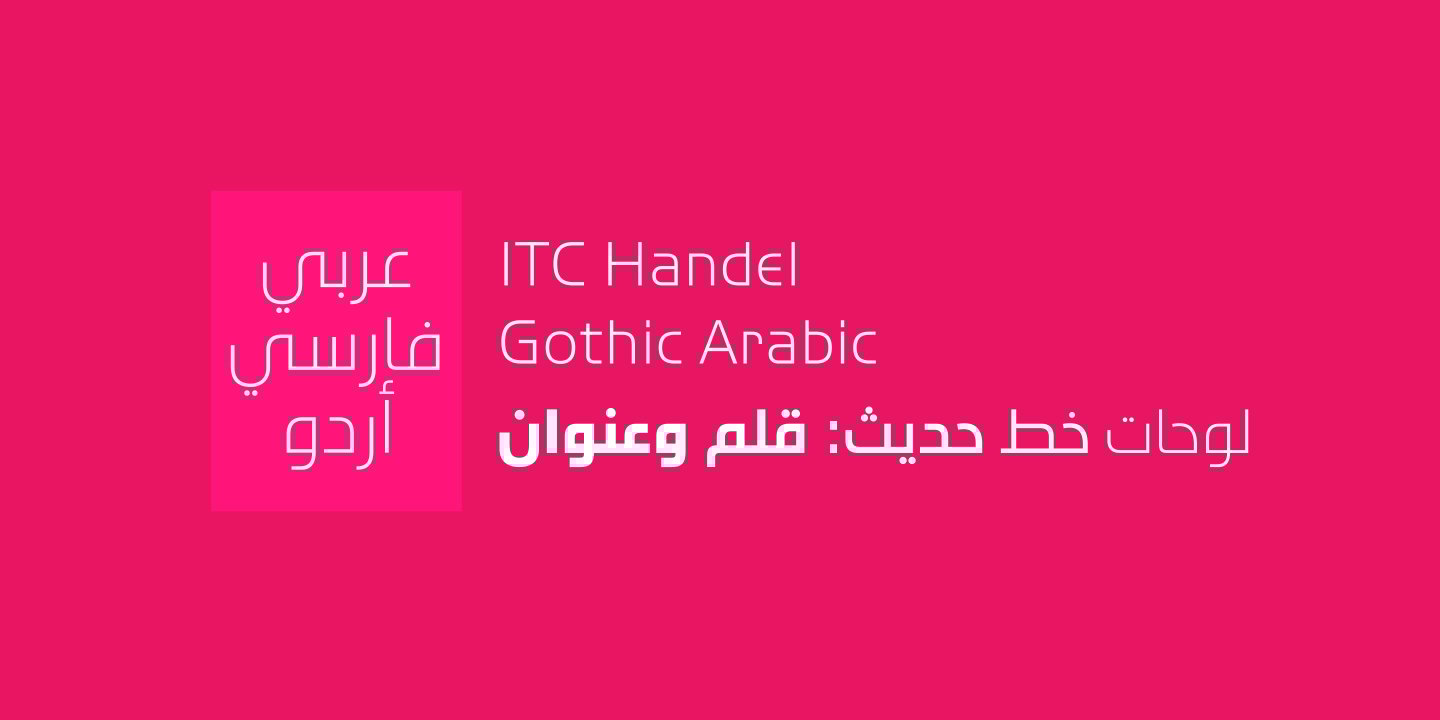
The ITC Handel Gothic Arabic Font is perfectly suited for diverse multilingual applications including Arabic-English bilingual branding, Middle Eastern corporate communications, international business presentations, multicultural advertising campaigns, global banking materials, diplomatic documentation, cultural exchange programs, international hotel signage, cross-cultural marketing materials, and multinational company branding. Its distinctive character makes it particularly effective for international corporations, financial institutions, government agencies, and global brands seeking to convey professionalism, cultural sensitivity, and international sophistication in their bilingual communications.
What makes the ITC Handel Gothic Arabic Font extraordinarily exciting is its seamless integration of Arabic script elegance with Latin typography excellence. This groundbreaking typeface represents the pinnacle of cross-cultural typographic design, combining the flowing beauty of Arabic calligraphy with the geometric precision of Gothic sans-serif principles. The font's captivating character emerges from its harmonious bilingual balance, carefully crafted proportions, and culturally respectful design approach that ensures authentic representation of both writing systems, making it perfect for brands seeking to establish credibility and cultural competence in Middle Eastern and international markets.
The ITC Handel Gothic Arabic Font family encompasses multiple weights and styles designed to provide comprehensive bilingual typography solutions. The collection typically includes light, regular, medium, bold, and black weights for both Arabic and Latin scripts, with many versions offering perfectly matched italic variants that maintain visual harmony across both writing systems. Some editions may include specialized Arabic ligatures, diacritical marks, and cultural ornaments that enhance the font's authenticity and utility for sophisticated Arabic-English publications and international communications.
International design professionals and multicultural marketing teams consistently choose the ITC Handel Gothic Arabic Font Free Download for its exceptional bilingual harmony and cultural authenticity. The font features meticulously engineered spacing and kerning for both Arabic and Latin scripts, ensuring optimal readability and visual balance in mixed-language layouts and international documents. Its robust construction maintains clarity and cultural appropriateness across various sizes and applications, while the comprehensive character set includes full Arabic Unicode support, extensive Latin characters, numerals, punctuation marks, and special symbols for professional international communications.
The ITC Handel Gothic Arabic Font represents the future of global typography, combining cultural authenticity with international design standards. Its bilingual aesthetic demonstrates cultural respect while maintaining the professionalism required for serious international business applications. The font's remarkable versatility allows it to work effectively in both traditional Arabic contexts and modern global branding, ensuring consistent excellence across international websites, multilingual publications, diplomatic materials, and cross-cultural marketing campaigns.
Bridge cultures and establish international credibility with the bilingual excellence and cultural sophistication of the ITC Handel Gothic Arabic Font, the ultimate choice for multicultural typography excellence.